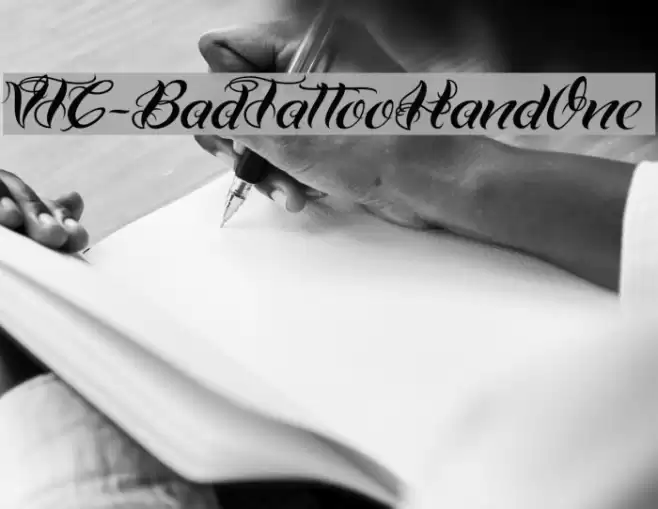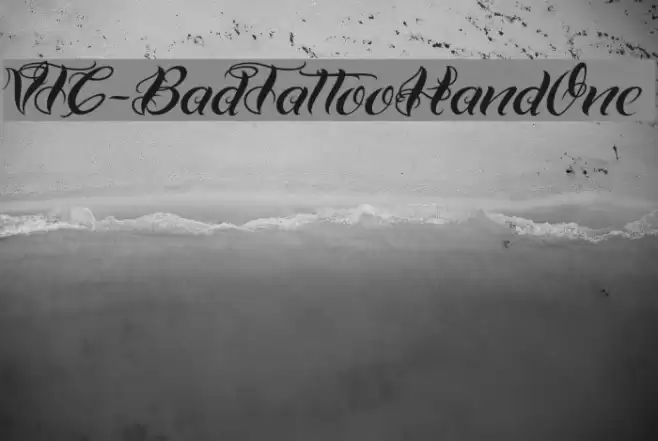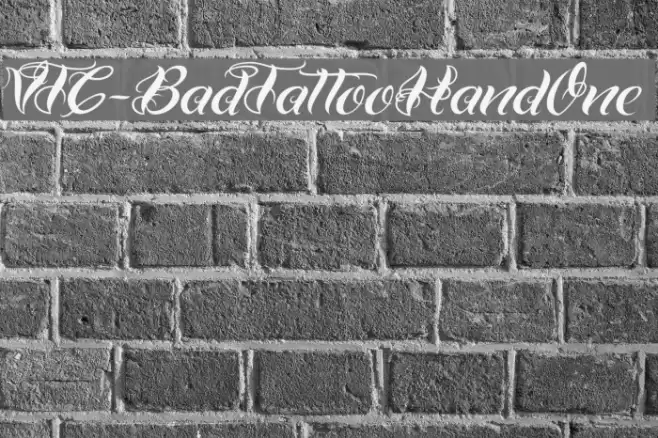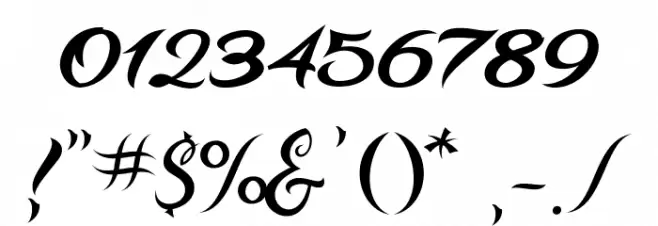
VTC-BadTattooHandOne Font
VTC-BadTattooHandOne Description
This font features an intricate and decorative style, reminiscent of tattoo art. The uppercase letters are highly stylized with elaborate swirls and flourishes, giving them a bold and artistic appearance. The lowercase letters maintain a similar aesthetic but are slightly more subdued, allowing for better readability. The numbers and special characters continue the theme with unique and ornate designs. This font exudes a sense of creativity and individuality, making it ideal for projects that require a distinctive and eye-catching look.
A decorative and tattoo-inspired font with intricate swirls and flourishes from Uncategorized fonts.
- Proposed Projects: Ideal for tattoo designs, album covers, posters, and creative branding projects.
- Use Case: Logos, Headlines, Artistic projects